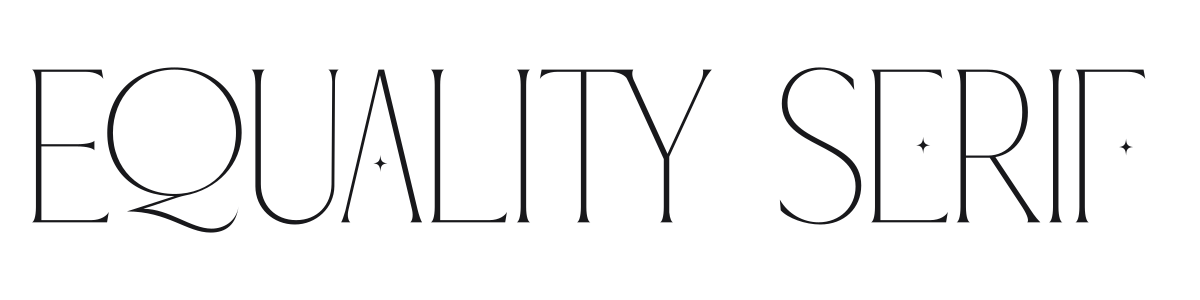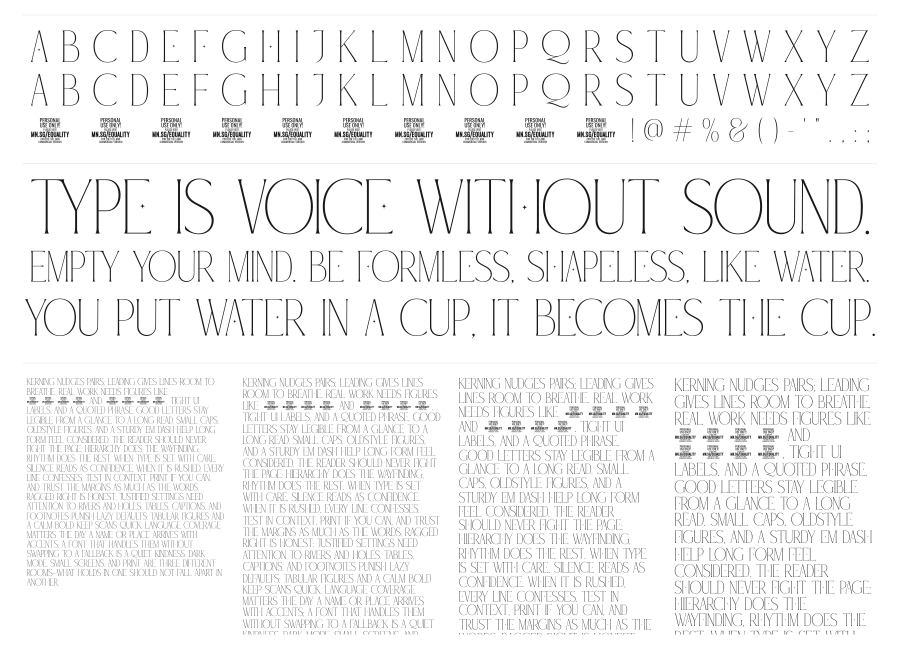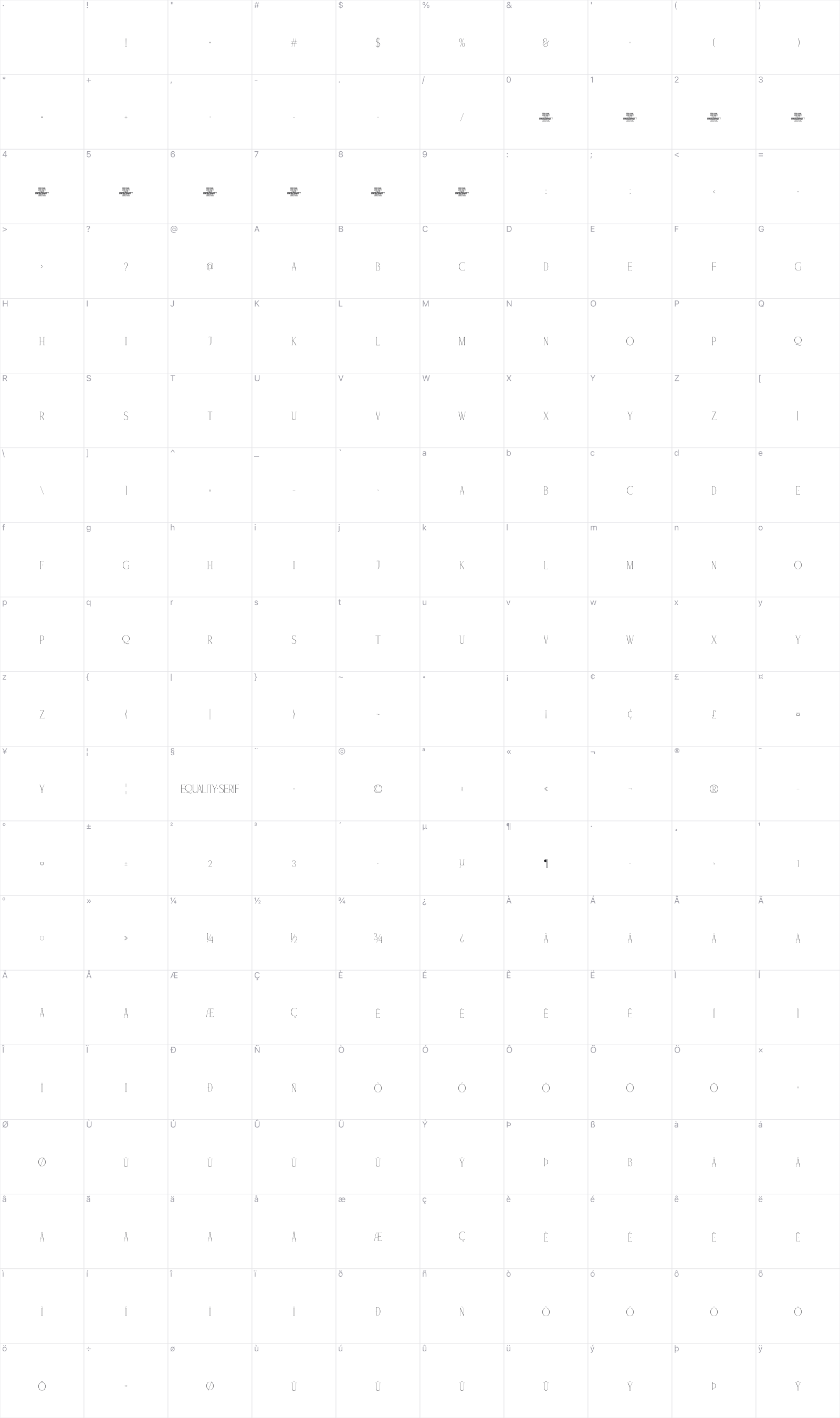
Equality Serif
Equality Serif is a condensed modern serif with extreme stroke contrast that pushes hairline thins against just-visible vertical stems. Decorative star ornaments punctuate the design, giving it a jewellery-like quality beyond a standard Didone. Strong at large sizes for fashion editorials, luxury branding, and wedding stationery.